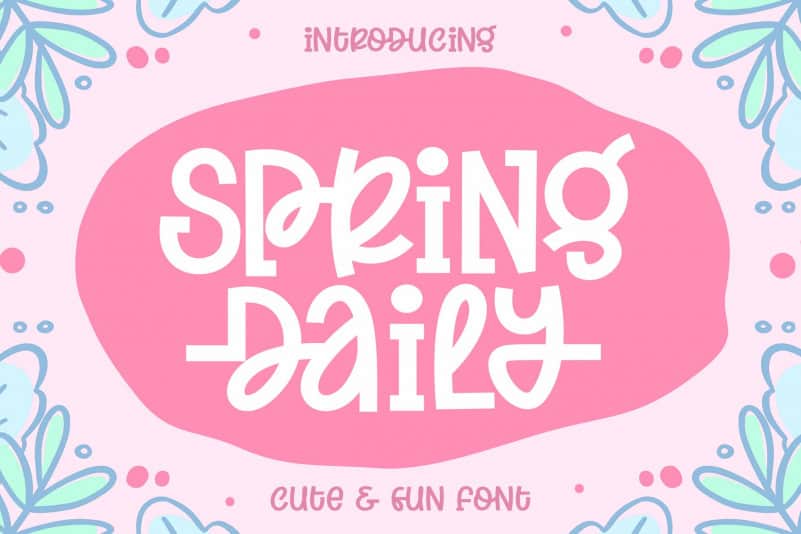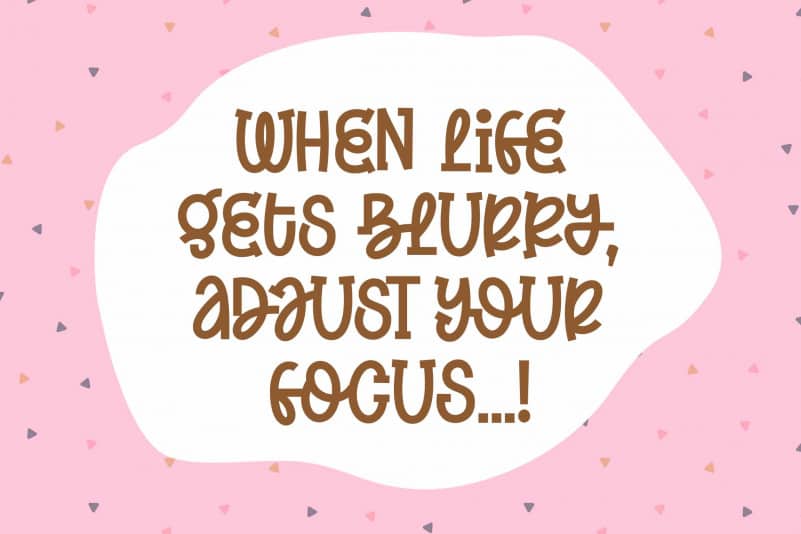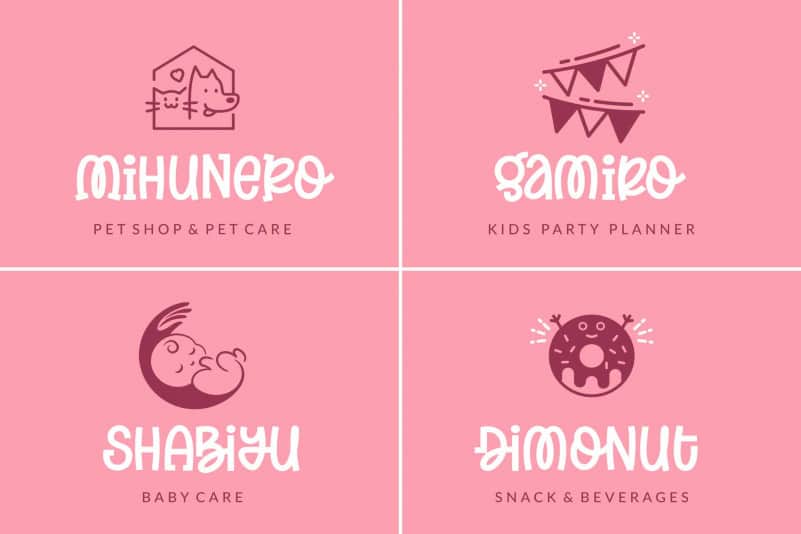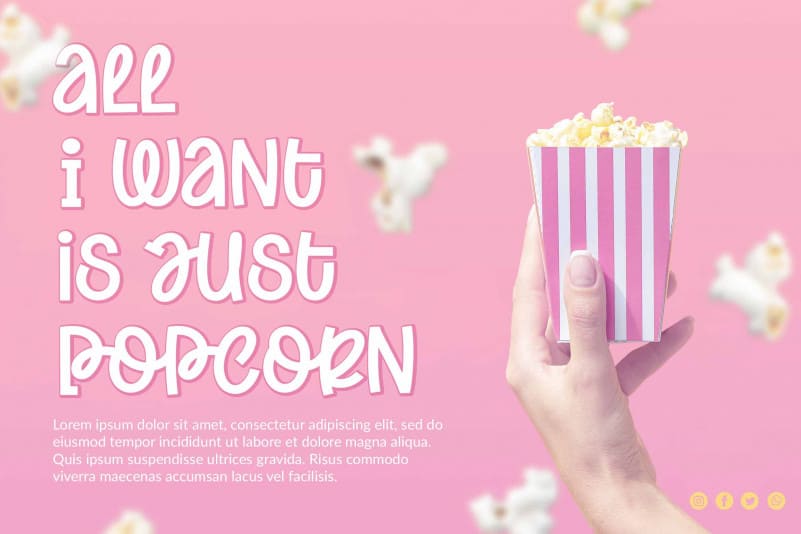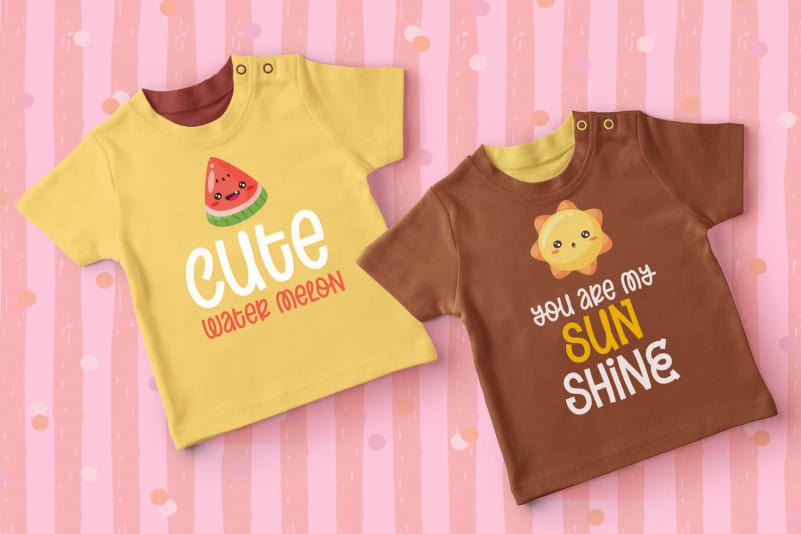
Spring Daily / Cut and Fun Font
Spring Daily / Cut and Fun Font is a bold & cute handwritten font. For the capital letters and lowercase I make it the same style, but it differentiate a little, that is in the capital I give “serif” so that it can be mixed and match with the lowers This font is perfect for quotes, headings, blogs, logos, invitations and more!